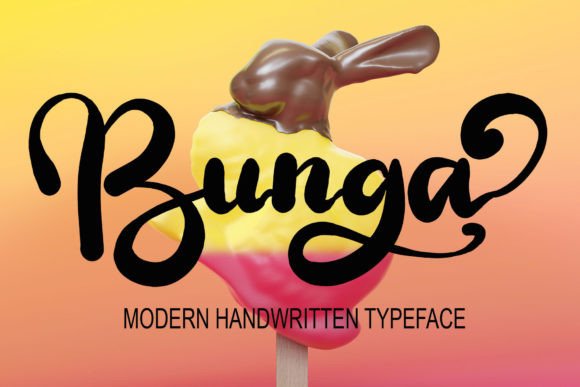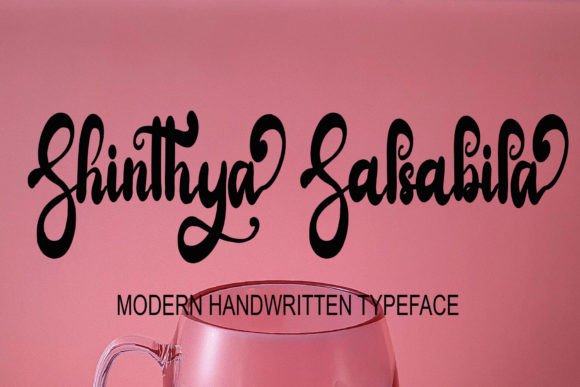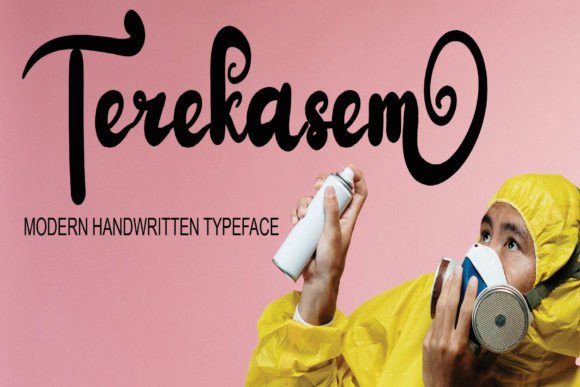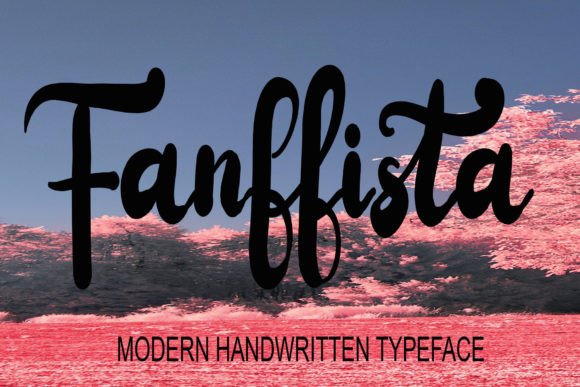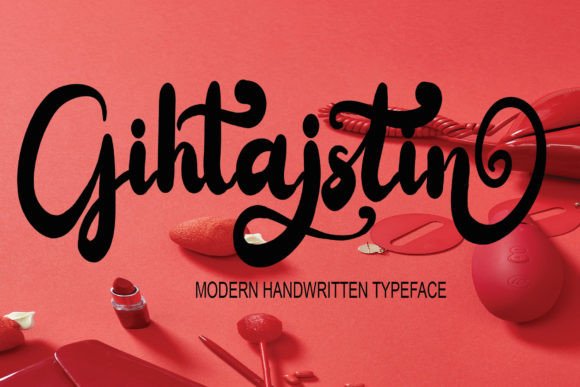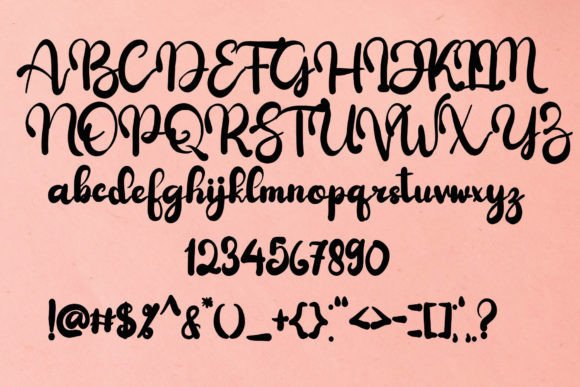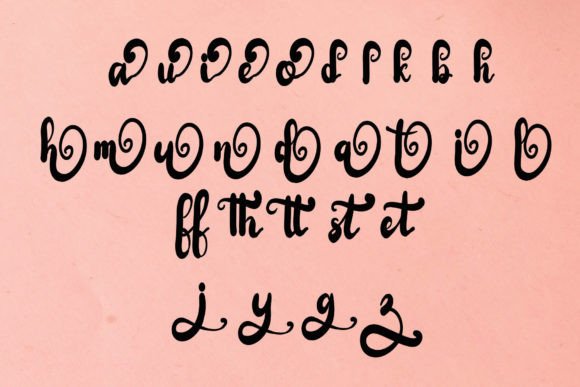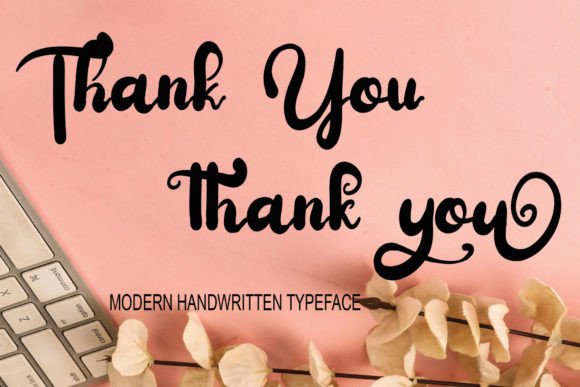
Bunga Font
About Bunga Font
**Bunga Font: Modern Boldness for All Your Design Needs**
Bunga is a contemporary and bold handwritten script font that can elevate a wide range of design projects. Its distinctive and eye-catching style makes it a versatile choice for various occasions. Here’s how you can make the most of the Bunga font:
1. **Crafts and DIY Projects:** Incorporate Bunga into your craft and DIY endeavors. Create personalized labels, stickers, and handmade items that stand out with this bold font.
2. **Digital Design:** Enhance your digital designs, including website graphics, social media posts, and blog banners. Bunga’s modern and bold appearance ensures your online content catches attention.
3. **Presentations:** Utilize the font to make your presentations more impactful. Whether for business meetings or academic lectures, Bunga adds a touch of professionalism and style.
4. **Greeting Cards:** Design bold and memorable greeting cards for special occasions like birthdays, weddings, and holidays. Bunga’s contemporary flair makes your messages pop.
5. **Logos and Branding:** Create standout logos and branding materials. Bunga’s boldness can help your brand make a strong and memorable impression.
6. **Posters and Flyers:** Craft attention-grabbing posters, flyers, and promotional materials. Bunga’s modern aesthetic ensures your messages are noticed.
7. **Website Headings:** Use the font for website headings, banners, and call-to-action buttons. Bunga’s boldness draws visitors’ attention to key elements on your site.
8. **Quote Graphics:** Design visually appealing quote graphics for social media, adding a contemporary touch to inspirational messages and phrases.
9. **Product Packaging:** Customize product labels, packaging, and tags. Bunga’s bold script can enhance the visual appeal of your products.
10. **Apparel Design:** Create trendy apparel designs for t-shirts, hoodies, and more. Bunga’s modern look complements fashion-forward styles.
11. **Photography Watermarks:** Add a distinctive watermark to your photographs, protecting your work while maintaining a contemporary and artistic touch.
12. **Typography Art:** Craft typographic artwork for your home or as unique gifts. Bunga’s bold script lends itself well to creating impactful wall art.
13. **Restaurant Menus:** Design modern and attractive menus for restaurants and cafes. Bunga’s boldness can make menu items more enticing.
14. **Book Covers:** Create book covers that stand out on the shelves. Bunga’s contemporary script adds an element of sophistication.
15. **Party Invitations:** Design eye-catching party invitations, whether for birthdays, anniversaries, or special events. Bunga’s bold style sets the tone for celebration.
16. **Digital Journaling:** Use the font for digital journaling, adding a contemporary and personal touch to your digital diaries and notes.
17. **Merchandise:** Apply Bunga to merchandise like mugs, apparel, and accessories to create trendy and stylish products.
Bunga’s modern and bold handwritten script offers a fresh and stylish approach to design, making it suitable for a wide variety of creative projects. Its versatility and contemporary flair ensure it can become your go-to font for any occasion, allowing your designs to shine with confidence and boldness. Plus, with PUA encoding, accessing its glyphs and swashes is a breeze, giving you even more creative freedom.